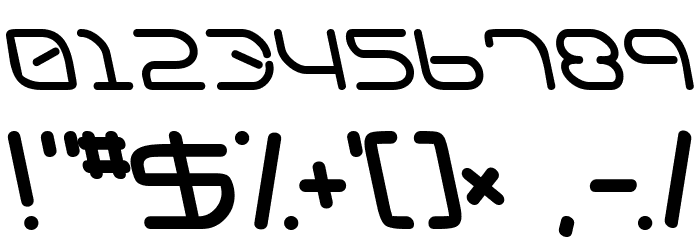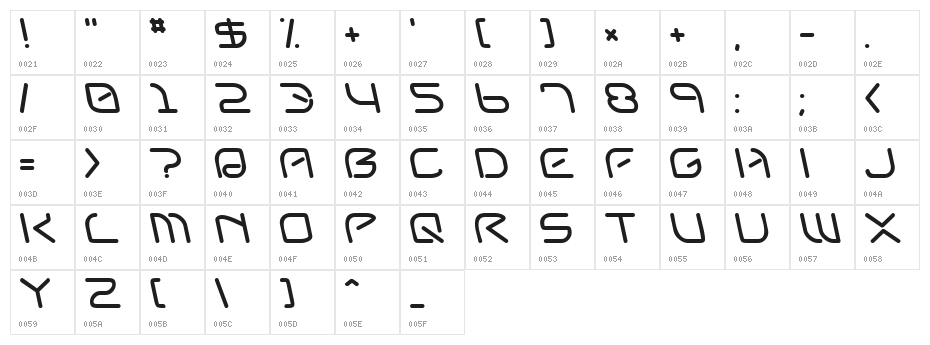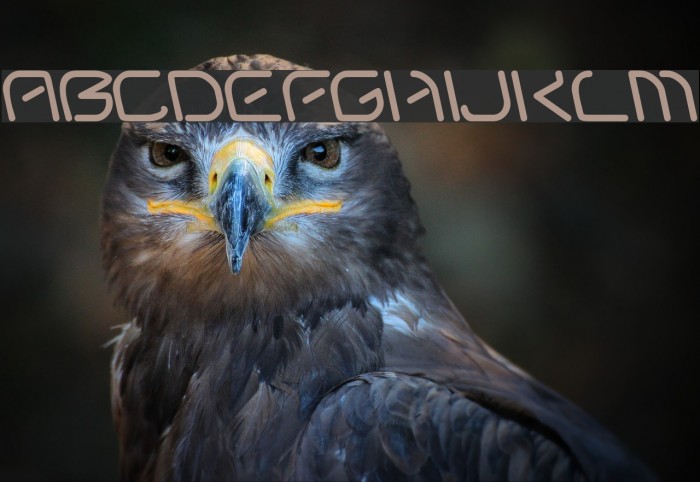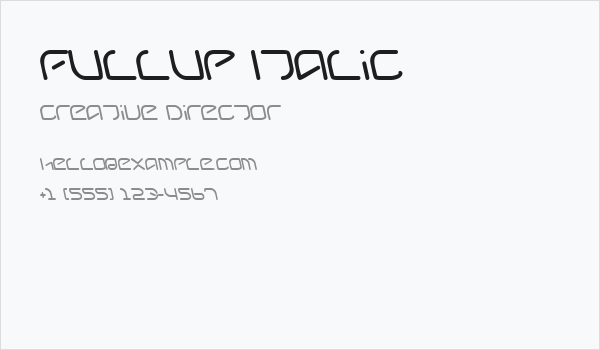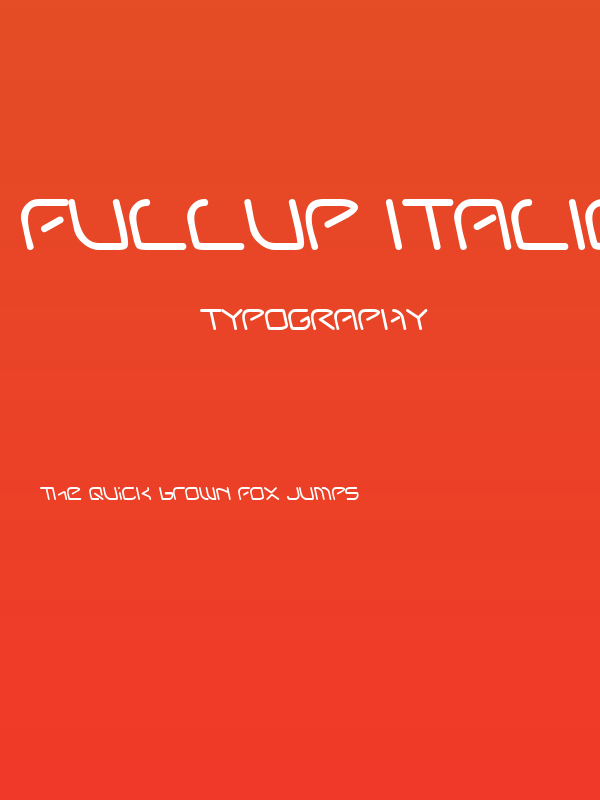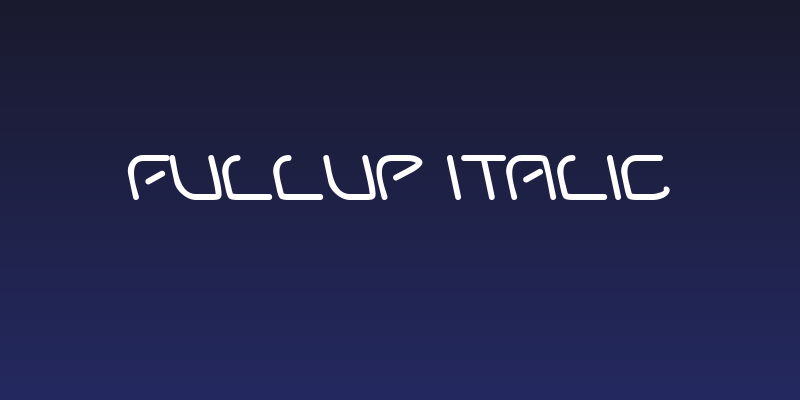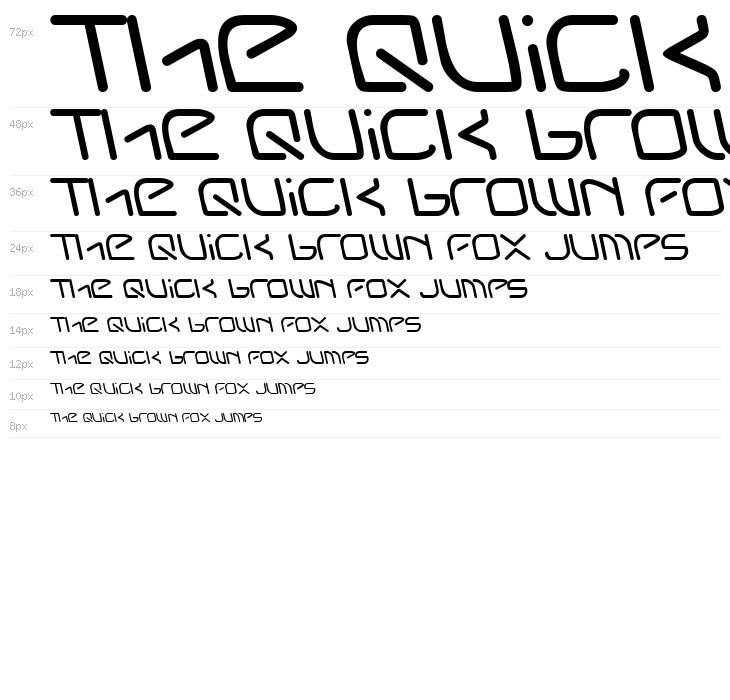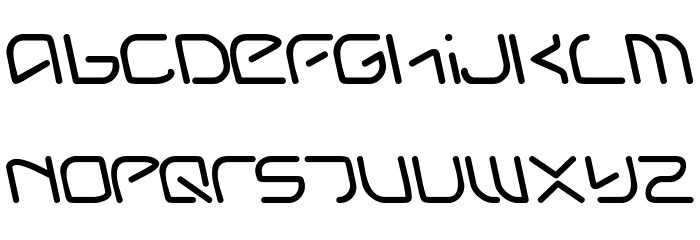
fullup Italic Font
fullup Italic Description
This font features a futuristic and geometric design, characterized by its rounded edges and consistent stroke width. The letters are slightly italicized, giving a sense of motion and modernity. The uppercase and lowercase characters maintain a uniform style, with a distinctive, almost monospaced appearance. The numerals and special characters follow the same design principles, ensuring a cohesive look across all glyphs. Its unique style makes it stand out, suitable for projects that require a modern and tech-savvy aesthetic.
| Use Case | Logos, Headlines, Digital Interfaces |
| Proposed Projects | Ideal for technology branding, sci-fi themed designs, modern advertising, and digital interfaces. |